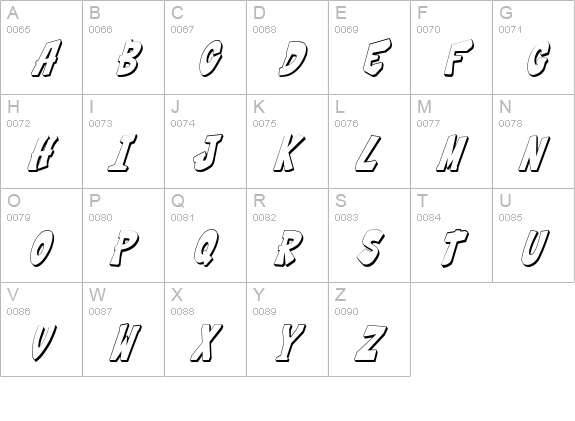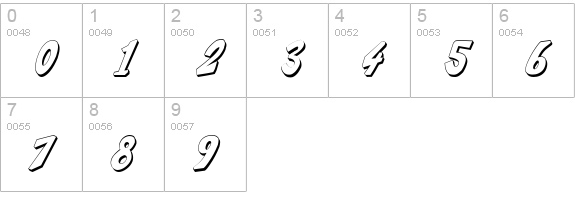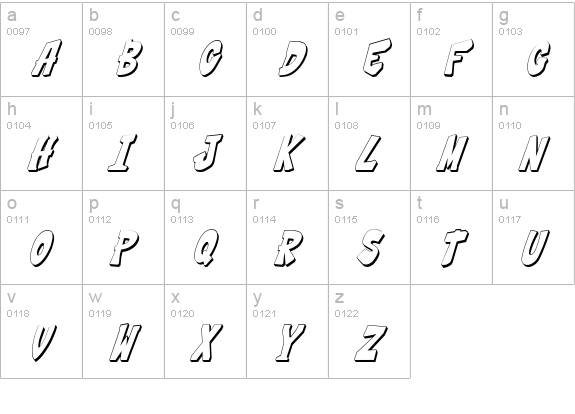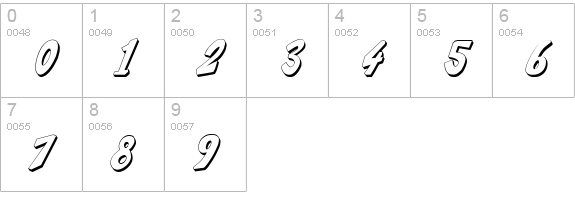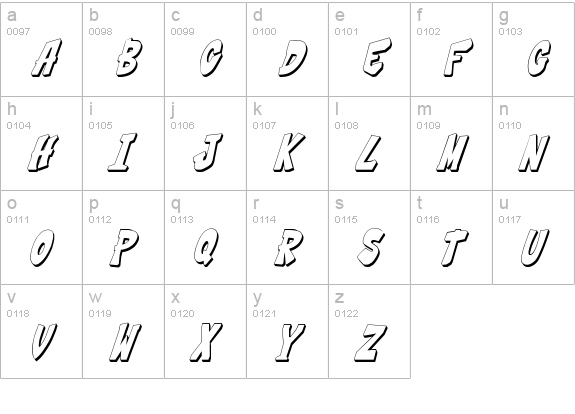
THWACK!!!2 Font Details
Introducing THWACK!!!2 font, a bold and dynamic typeface that packs a punch with its eye-catching design. This font is perfect for adding a touch of excitement and energy to any creative project. Whether you're designing a poster, logo, or website, THWACK!!!2 will make a powerful statement. With its sharp edges and strong presence, THWACK!!!2 font commands attention and demands to be noticed. Its unique character set is inspired by the modern urban landscape, combining the edginess of graffiti with the legibility of a classic typeface. But what sets THWACK!!!2 font apart from the rest is that it is freely available to download at FontsMarket.com. That's right, you can bring this electrifying font into your creative arsenal without breaking the bank. Now you can unleash your creativity without any limitations, all thanks to THWACK!!!2 font. Whether you're a professional designer or a DIY enthusiast, THWACK!!!2 font is the perfect companion for your next project. Its versatility allows it to be used in various contexts, from branding to editorial design, ensuring that your message is delivered with impact. So why wait? Get your hands on THWACK!!!2 font today and experience the thrill of having a powerful and captivating typeface at your disposal. Download it freely at FontsMarket.com and take your designs to new heights. Don't settle for ordinary fonts when you can have the extraordinary with THWACK!!!2.